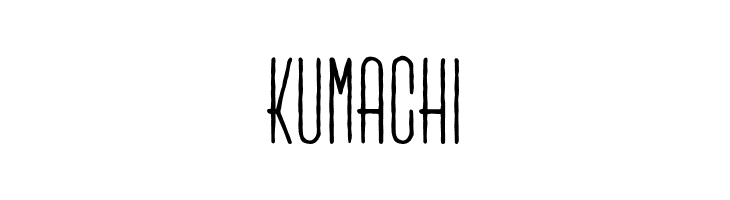
A bold, italicized font with a futuristic, angular design.
A playful, decorative font with intricate patterns inside bold letters.
A playful, bold font with a shadow effect for a three-dimensional look.
A geometric, modern font with bold, angular lines and a tech-inspired aesthetic.
A playful, handwritten font with brush-like strokes and an artistic flair.
An elegant italic serif font with medium contrast and classic appeal.
A futuristic font with a gradient effect created by horizontal lines, offering a modern digital aesthetic.
Tall, narrow, handwritten font with a playful and casual style.
A bold, dynamic script font with a modern, energetic style.
A bold, 3D italic font with sharp, angular edges and a dynamic style.